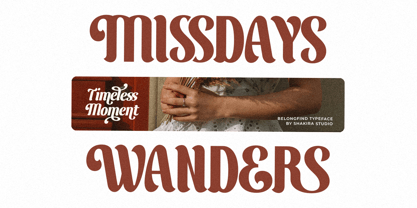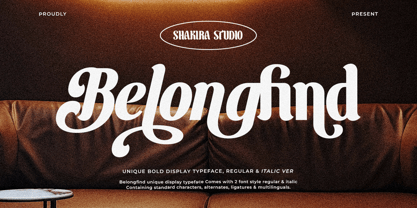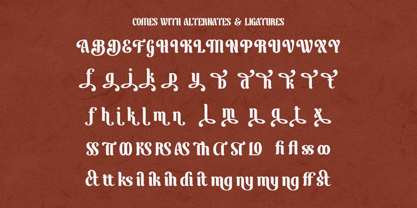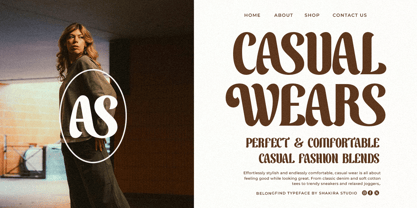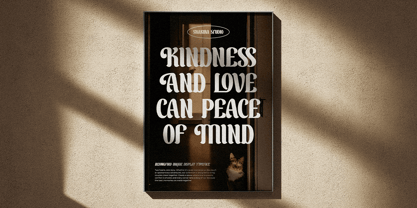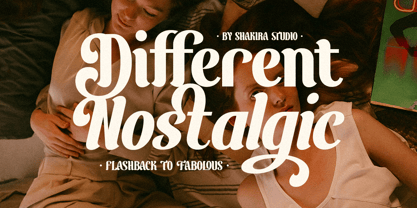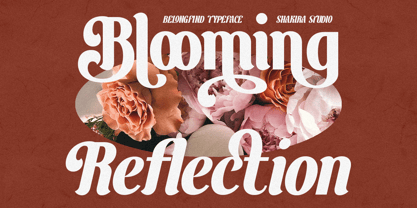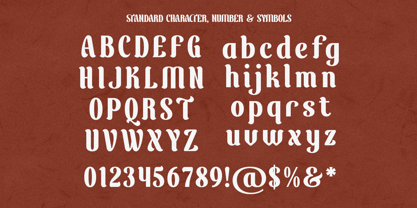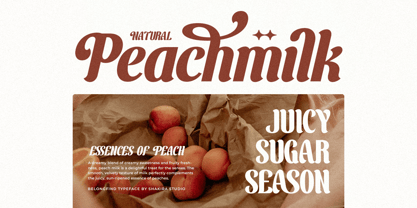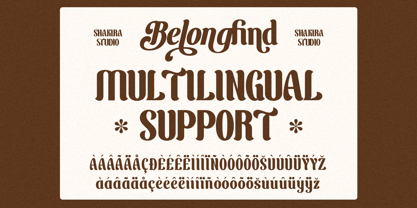
Belong Find
por Shakira Studio
La familia tipográfica Belong Find fue diseñada por Idhham Cholid Rikzano Yahya y publicada por Shakira Studio. Belong Find contiene 2 estilos y opciones de paquete familiar. Más información sobre esta familia
Belong Find - Unique Display Serif Font for Bold & Elegant Designs
Belong Find is a bold and unique display serif font designed to bring character and elegance to your projects. Featuring alternates and ligatures, this typeface offers flexibility for creating distinctive typography styles. Ideal for branding, logos, posters, magazines, packaging, and print designs, Belong Find ensures a timeless yet modern look. With both regular and italic versions, this font is perfect for making a statement in high-end editorial, fashion, and luxury branding. Elevate your designs with Belong Find – a display serif with personality and style!
• Regular & Italic
• All Multilingual symbol
• Opentype features ( ligature, alternate )